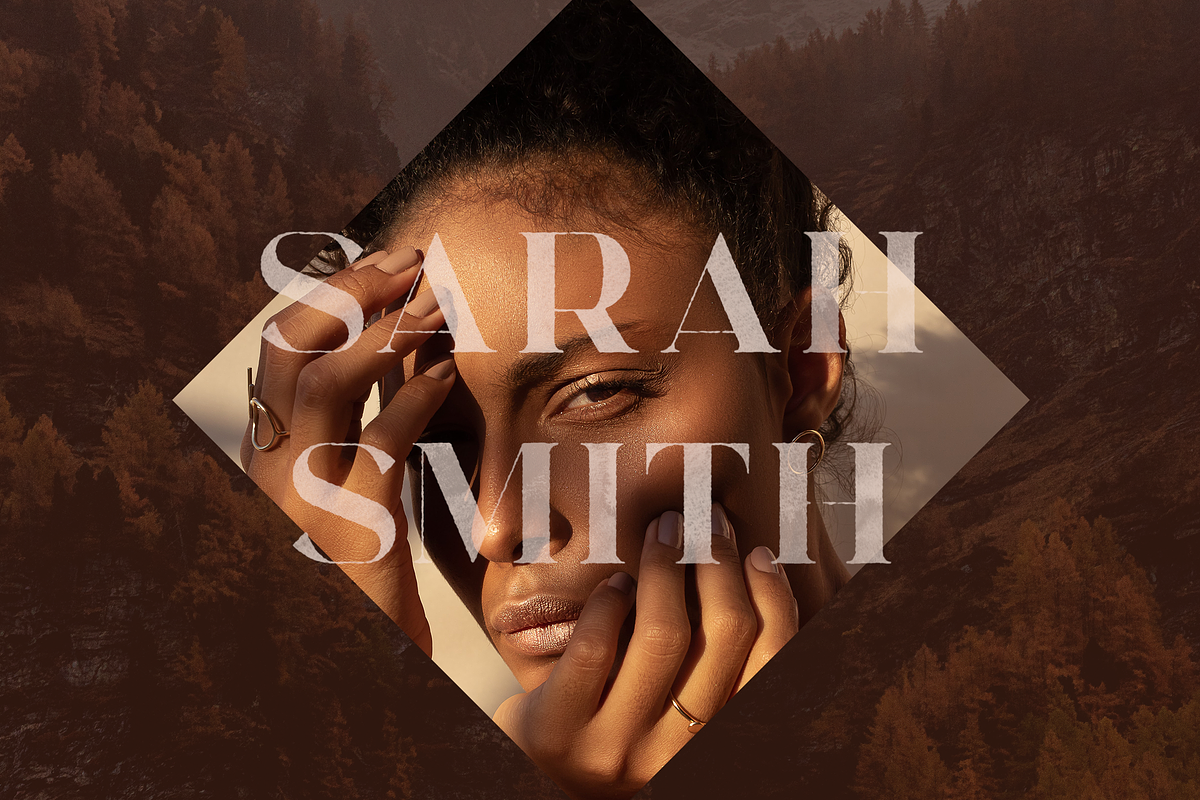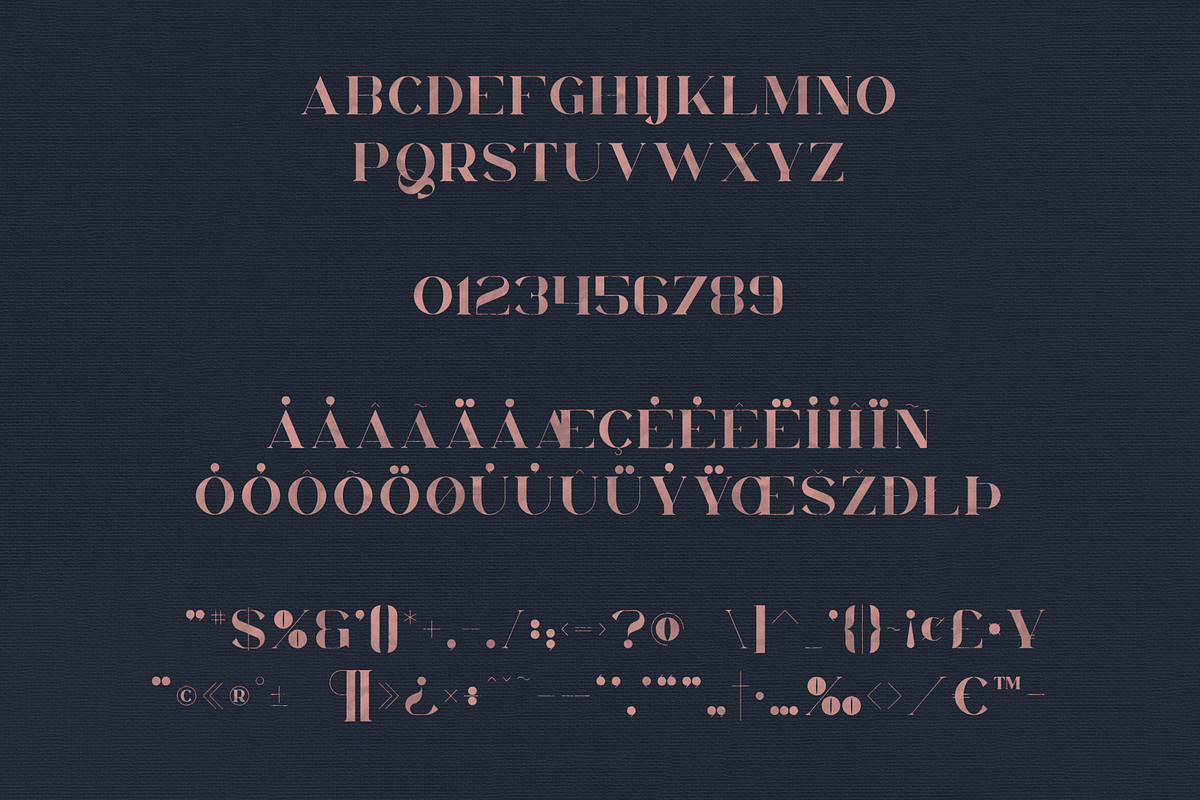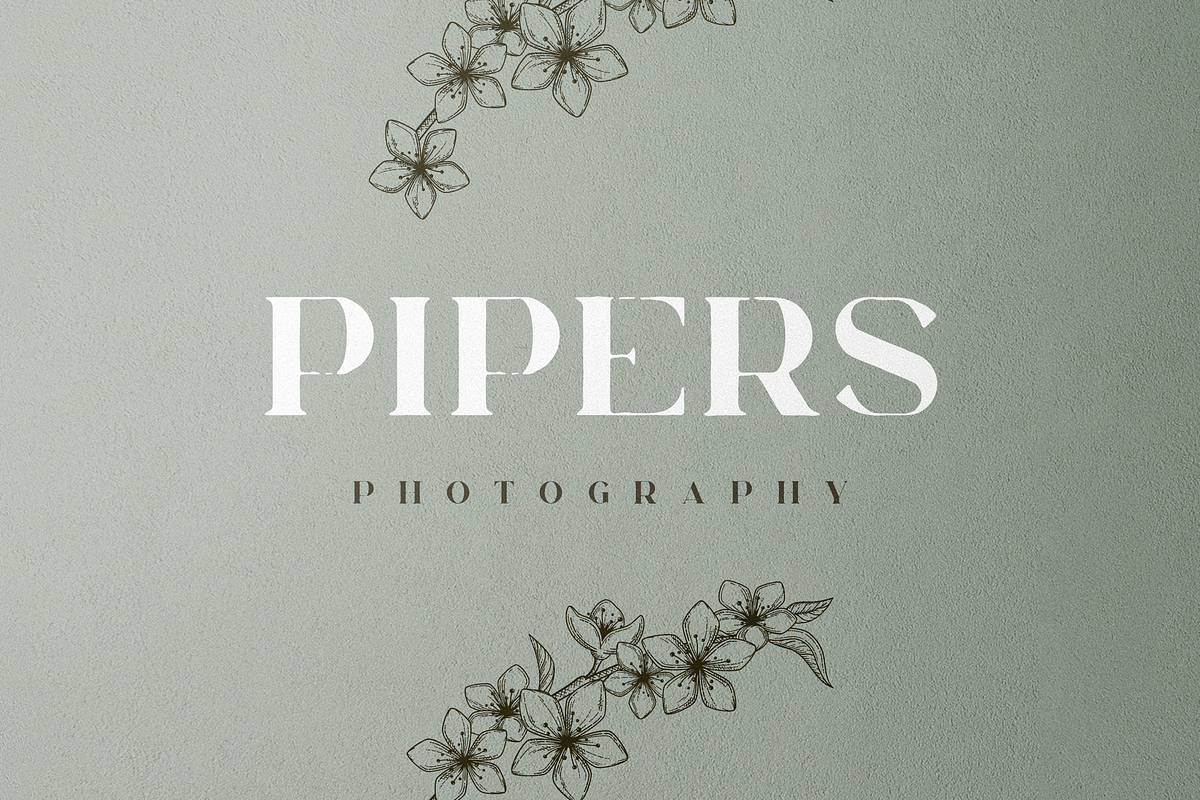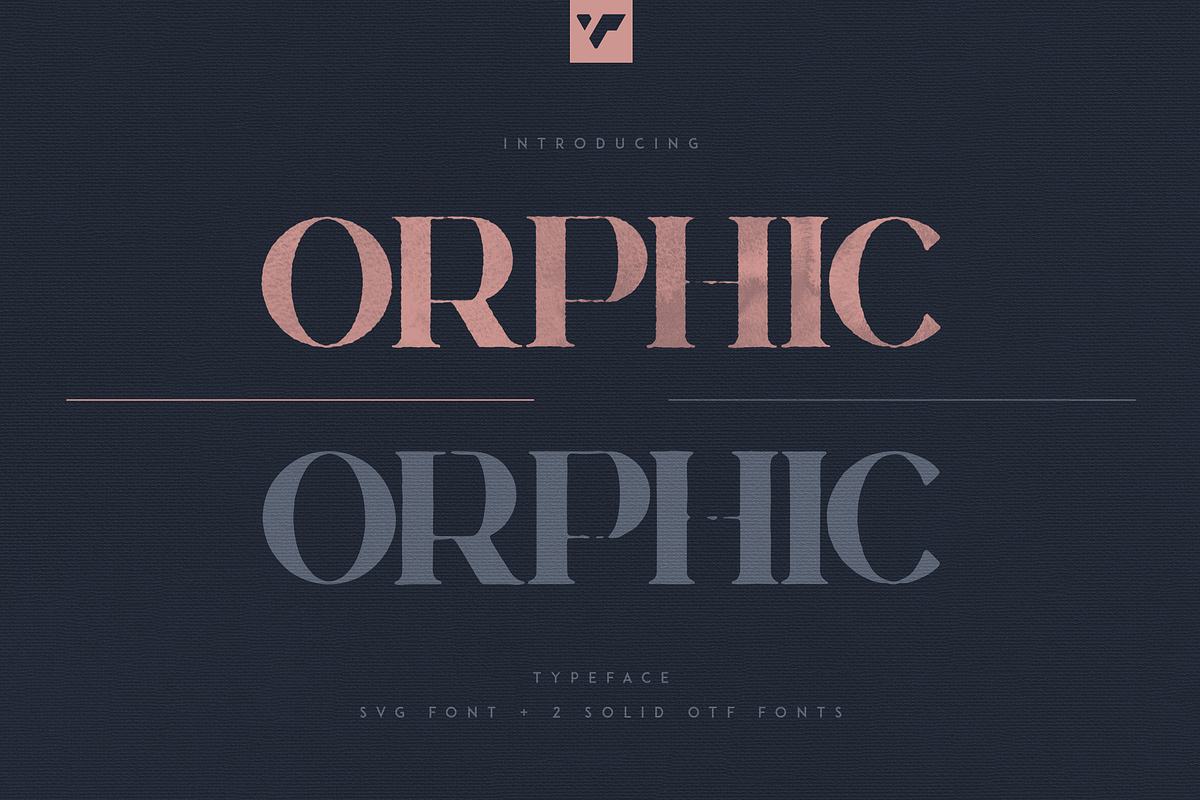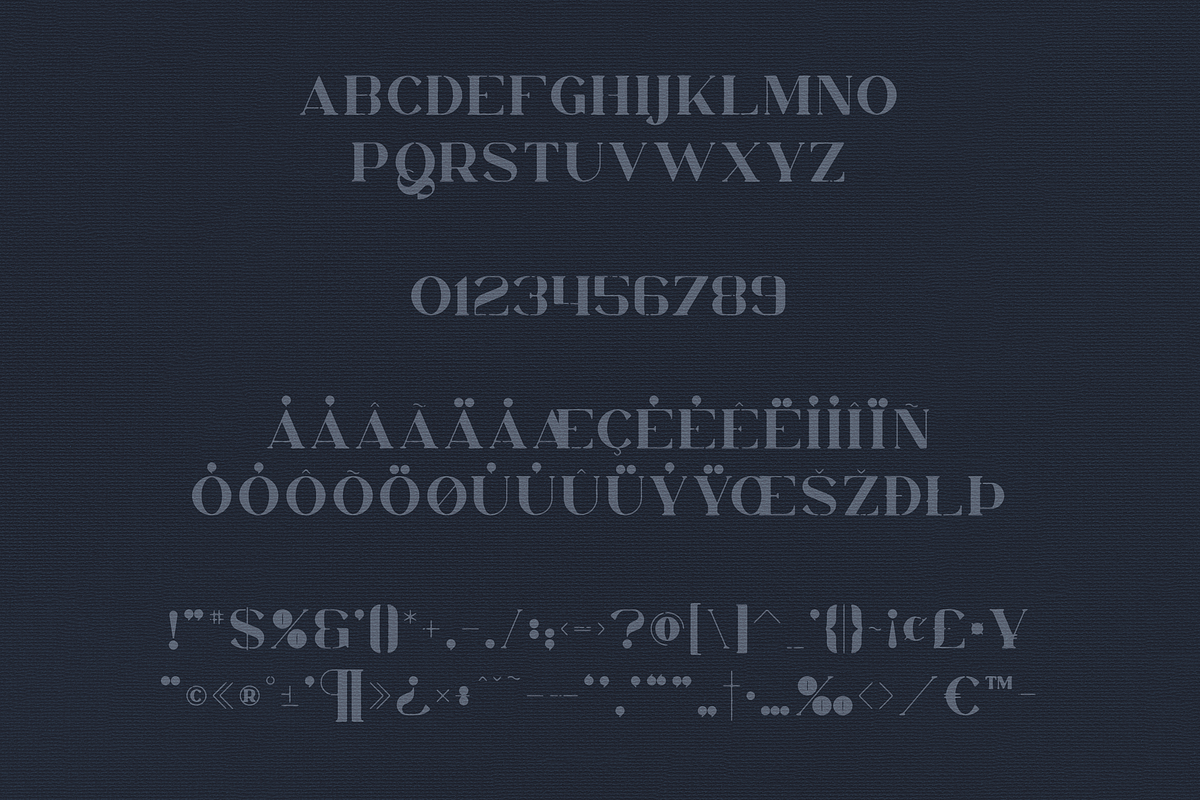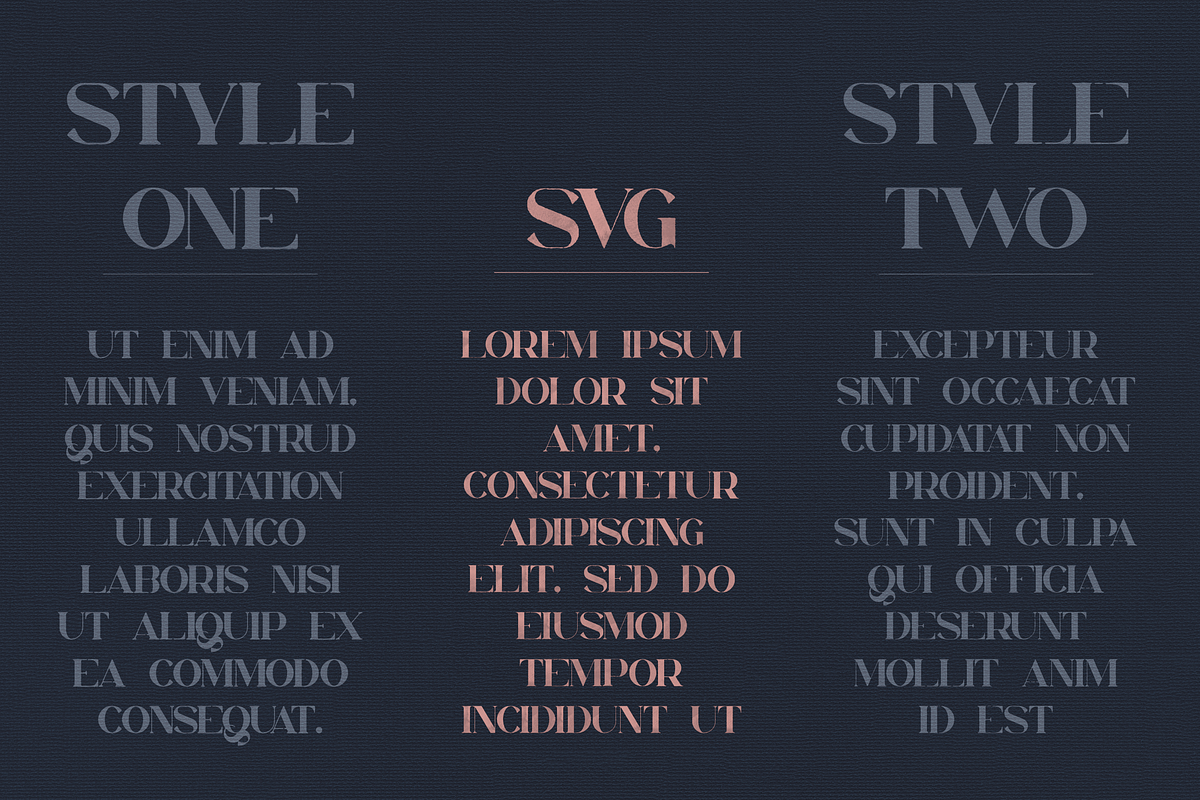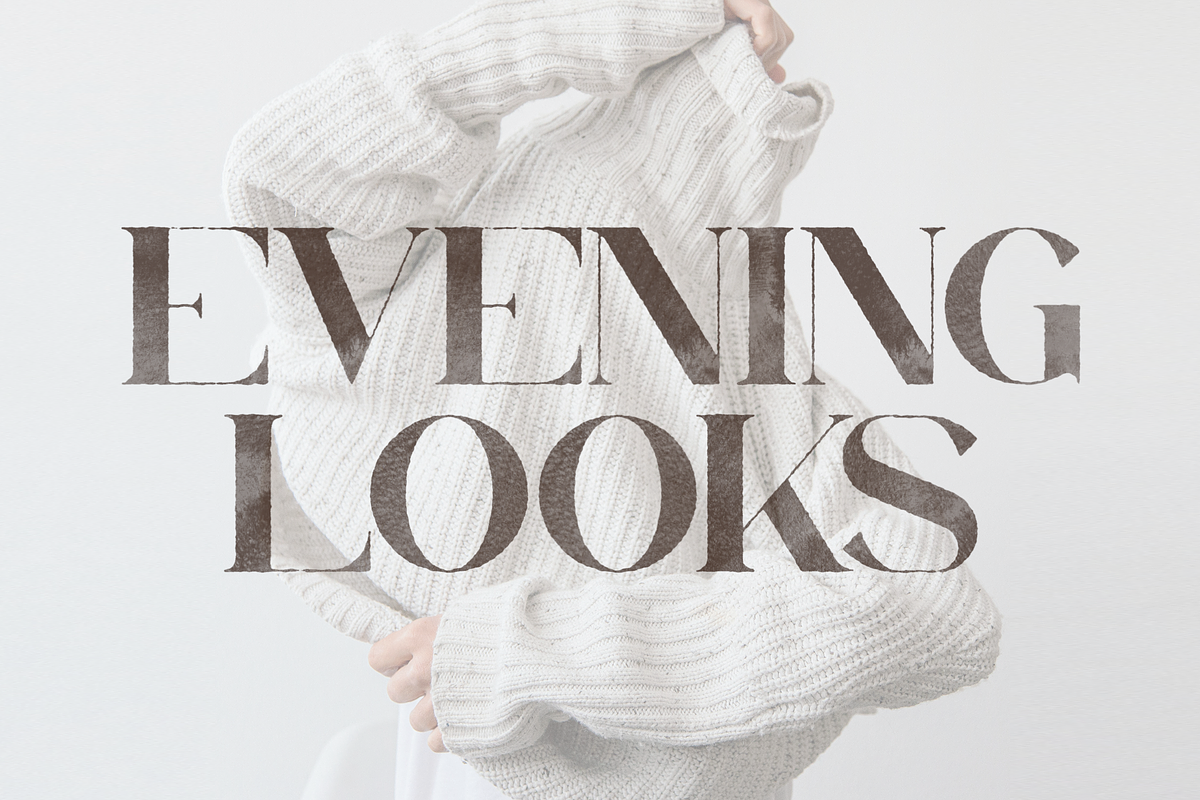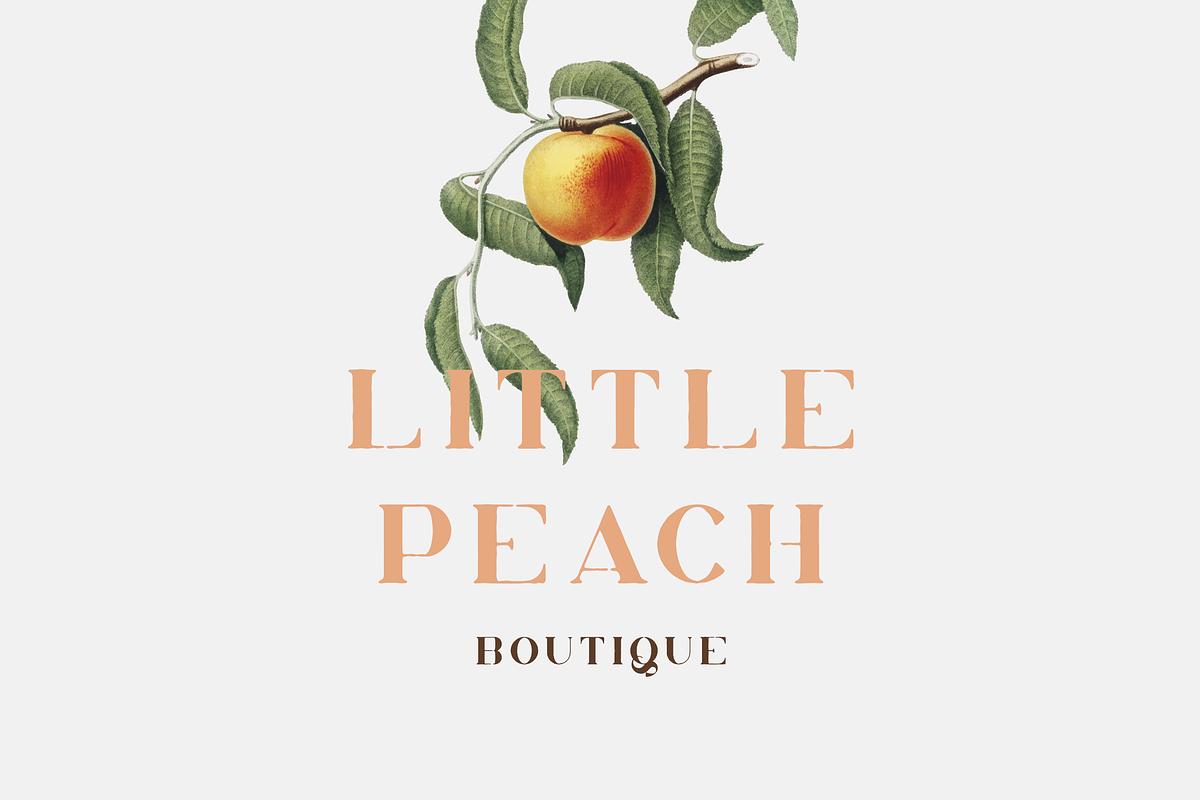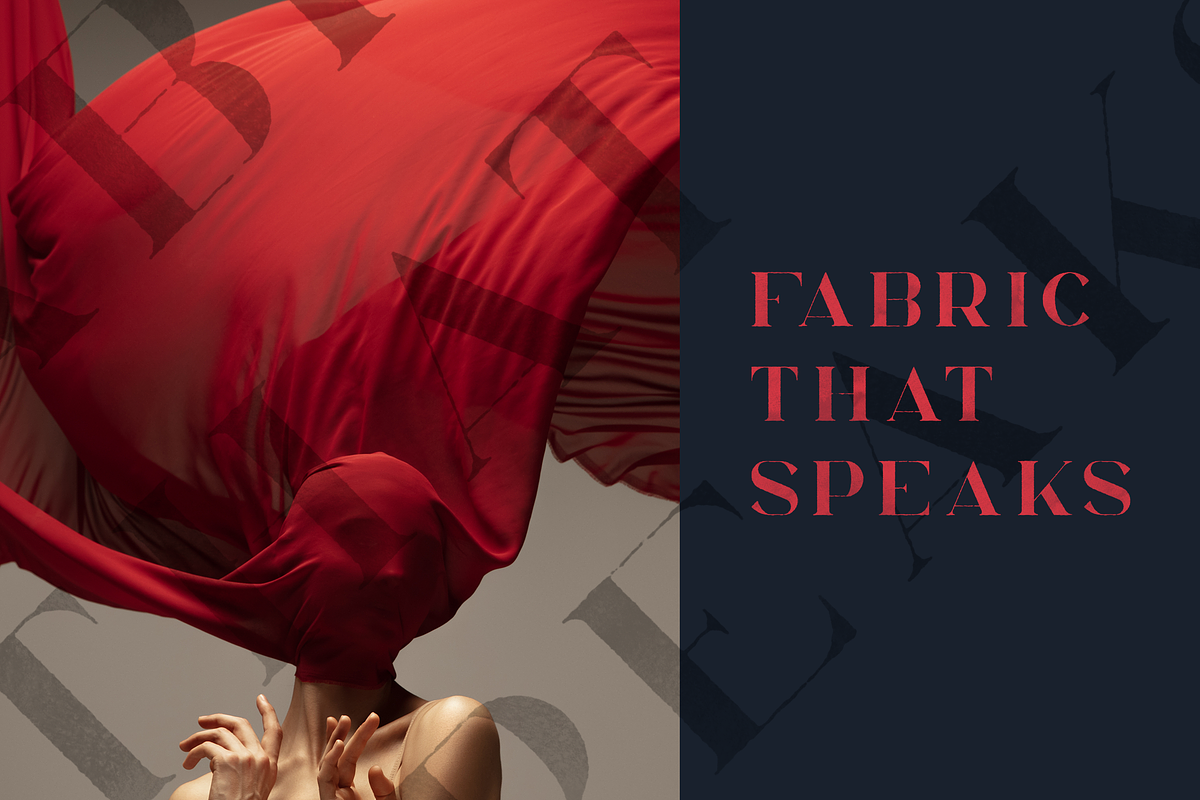
Orphic Typeface - SVG + Solid fonts
Introducing Orphic serif Typeface - Bitmap vsg + 2 solid fonts
Orphic is perfect for branding projects, home-ware designs, product packaging, magazine headers - or simply as a stylish text overlay to any background image.